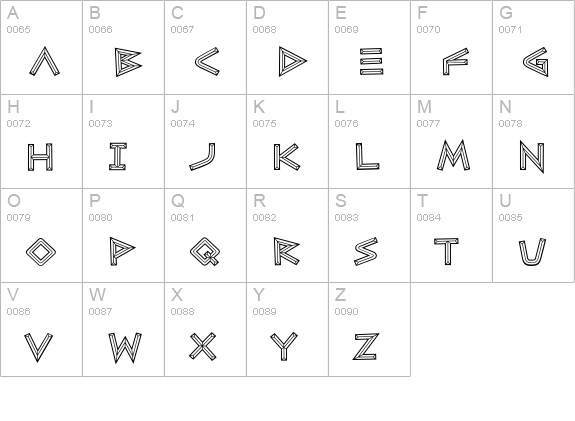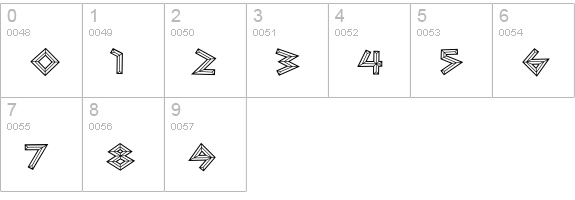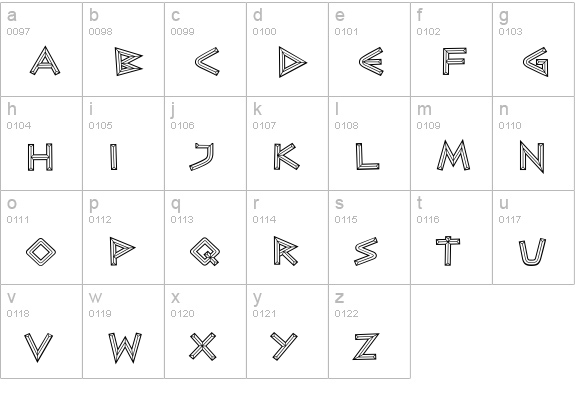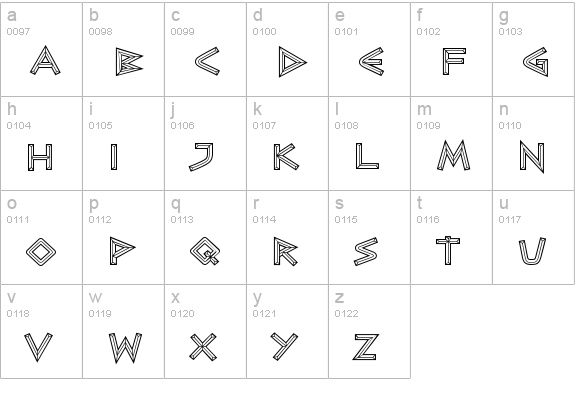
CaesarBrute BTN Chiseled Font Details
CaesarBrute BTN Chiseled font is a bold and powerful display typeface that exudes strength and determination. With its strong and chiseled letterforms, this font is perfect for creating eye-catching headlines, signage, and logos that demand attention. The distinctive chiseled edges of each letter give CaesarBrute BTN Chiseled font a rugged and dynamic appearance, making it suitable for projects that require a touch of raw energy and power. The heavy strokes and bold design of this font make it ideal for conveying a sense of authority and confidence. What sets CaesarBrute BTN Chiseled font apart is its versatility. Whether you need to create a vintage-inspired poster, a modern logo, or a striking tattoo design, this font has the ability to adapt to various styles and concepts. Its unique character will make any design stand out from the crowd. And the best part? CaesarBrute BTN Chiseled font is freely available to download at FontsMarket.com. You can easily access this font and unleash its potential for your personal or commercial projects. So don't miss the opportunity to add this powerful and captivating font to your design arsenal. Download CaesarBrute BTN Chiseled font today and let your creativity run wild.